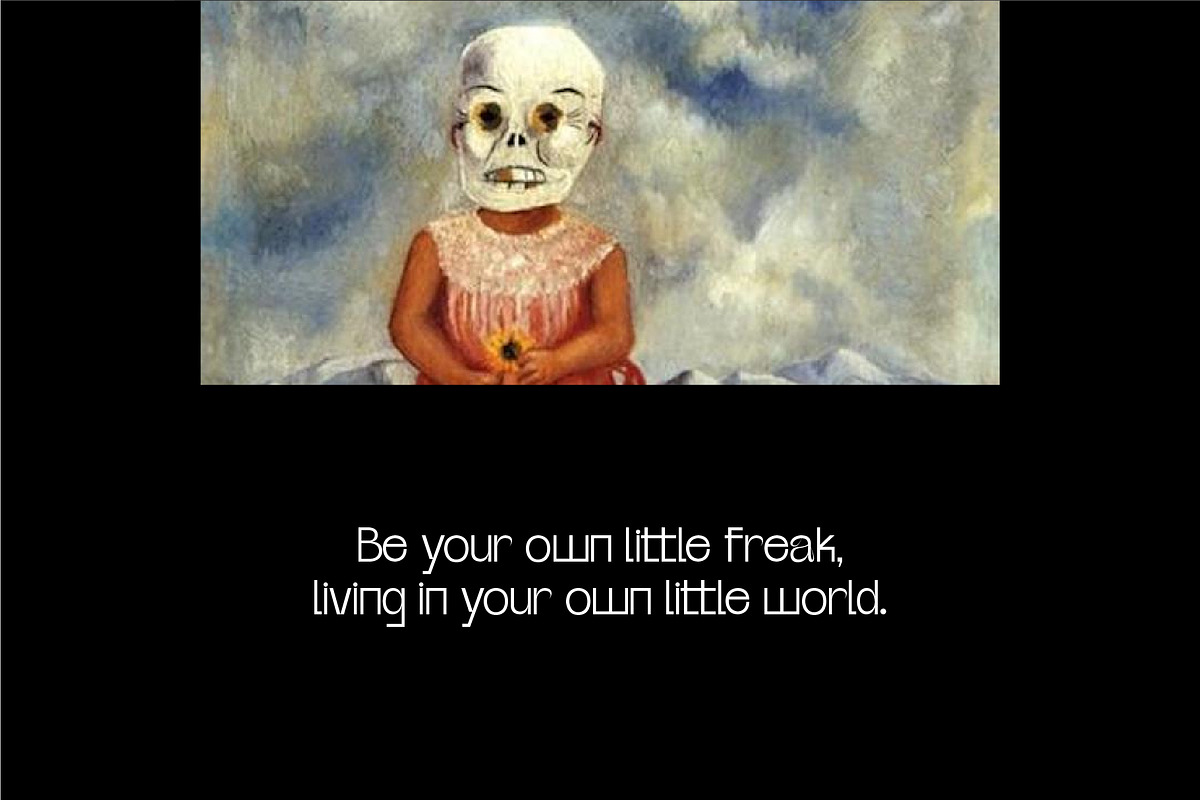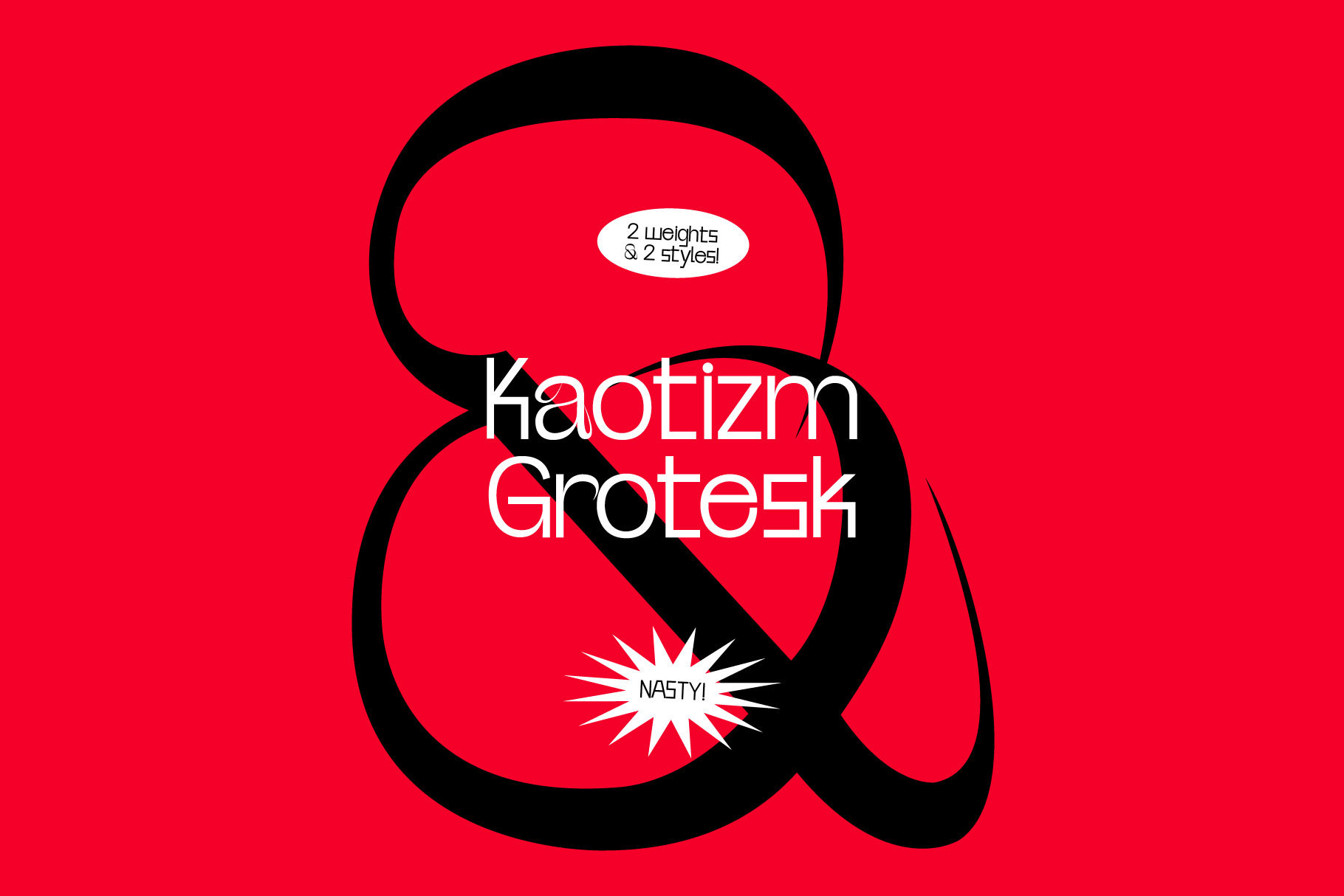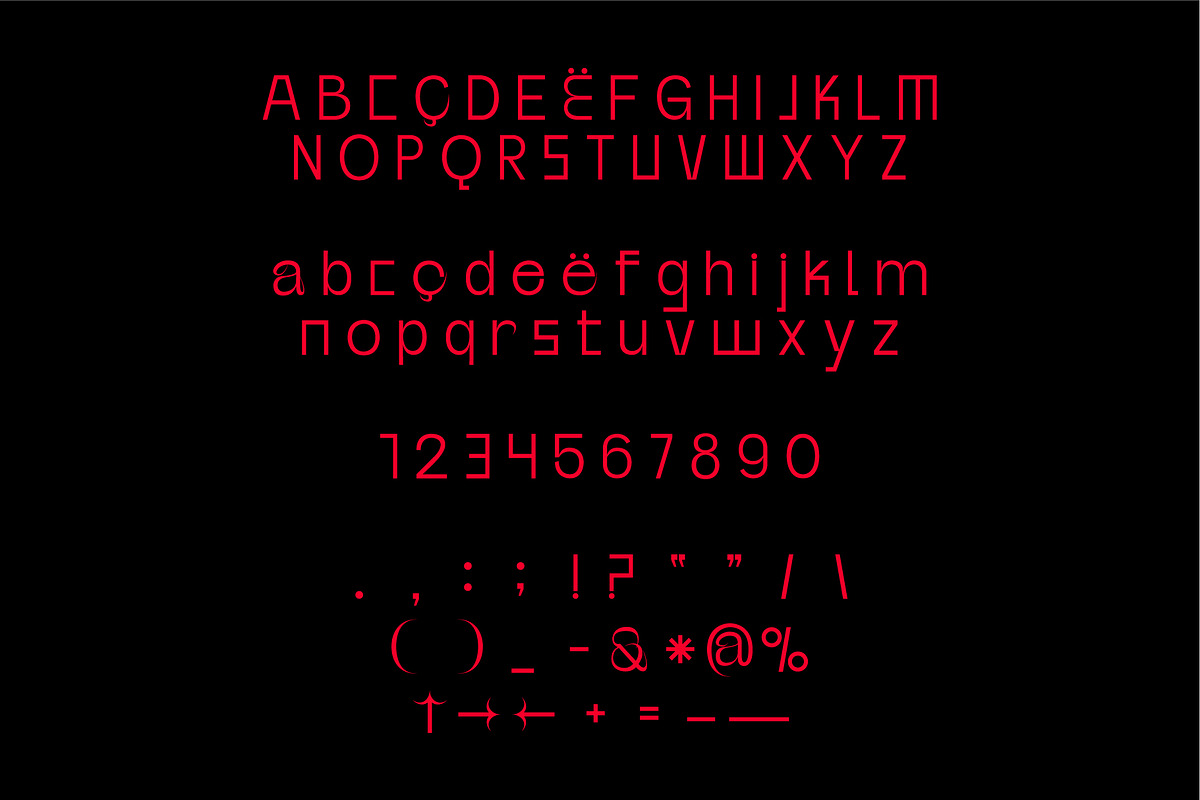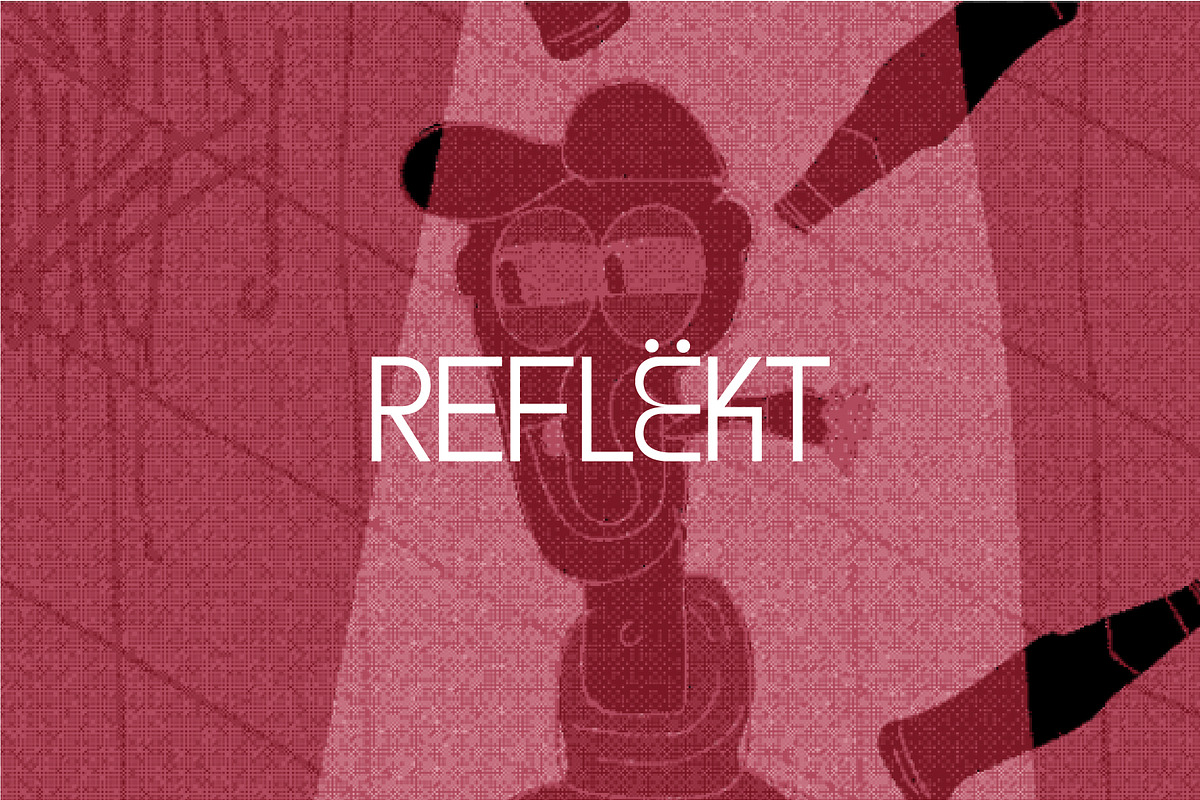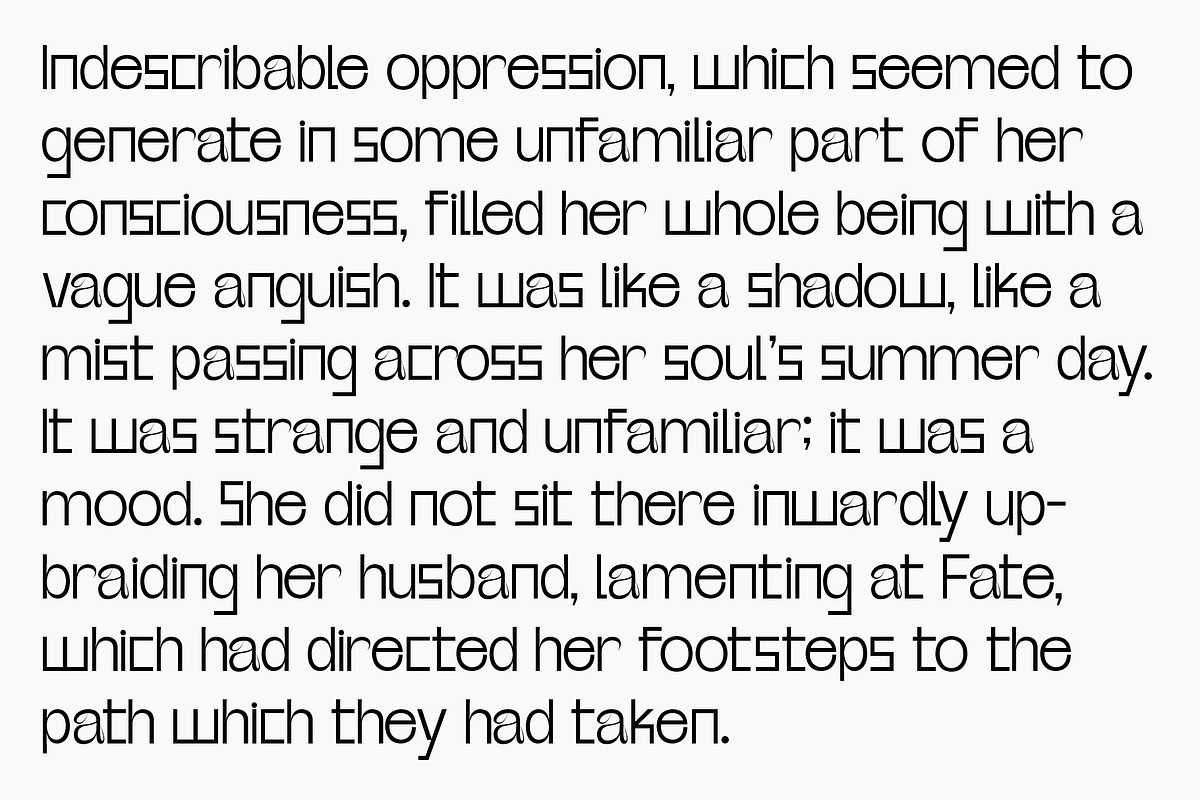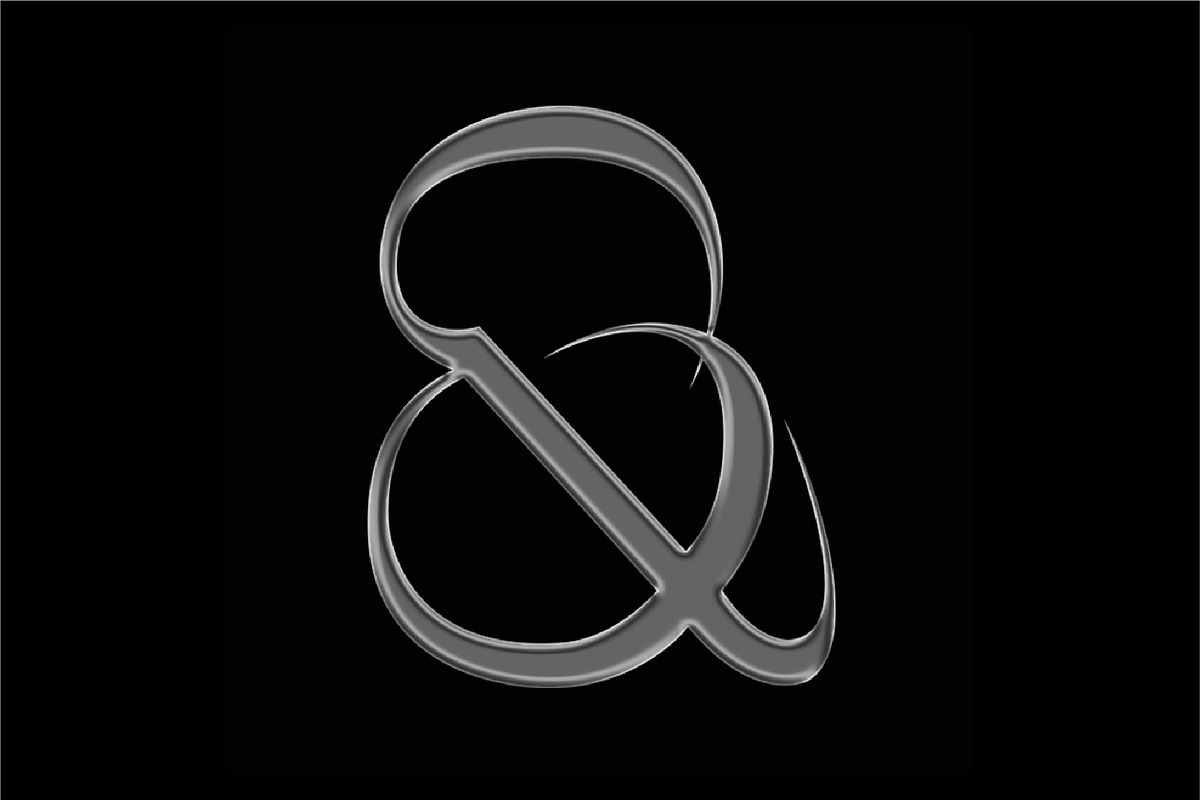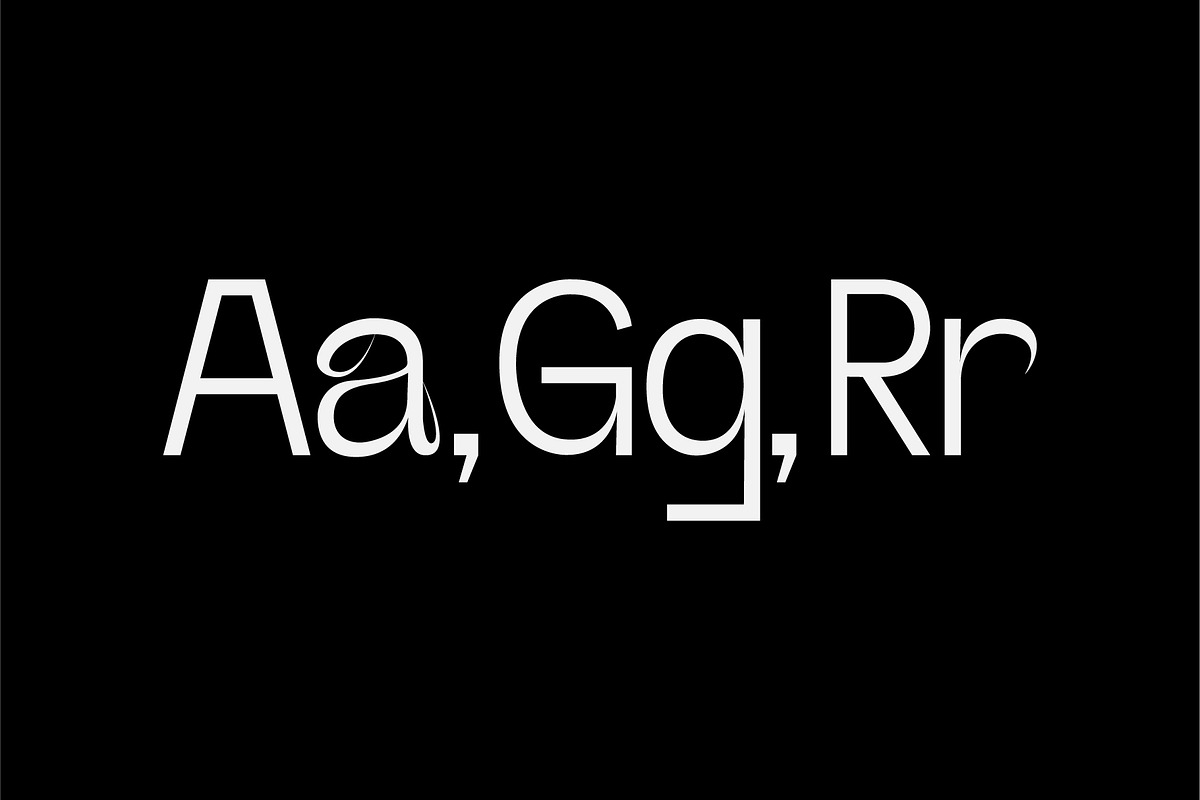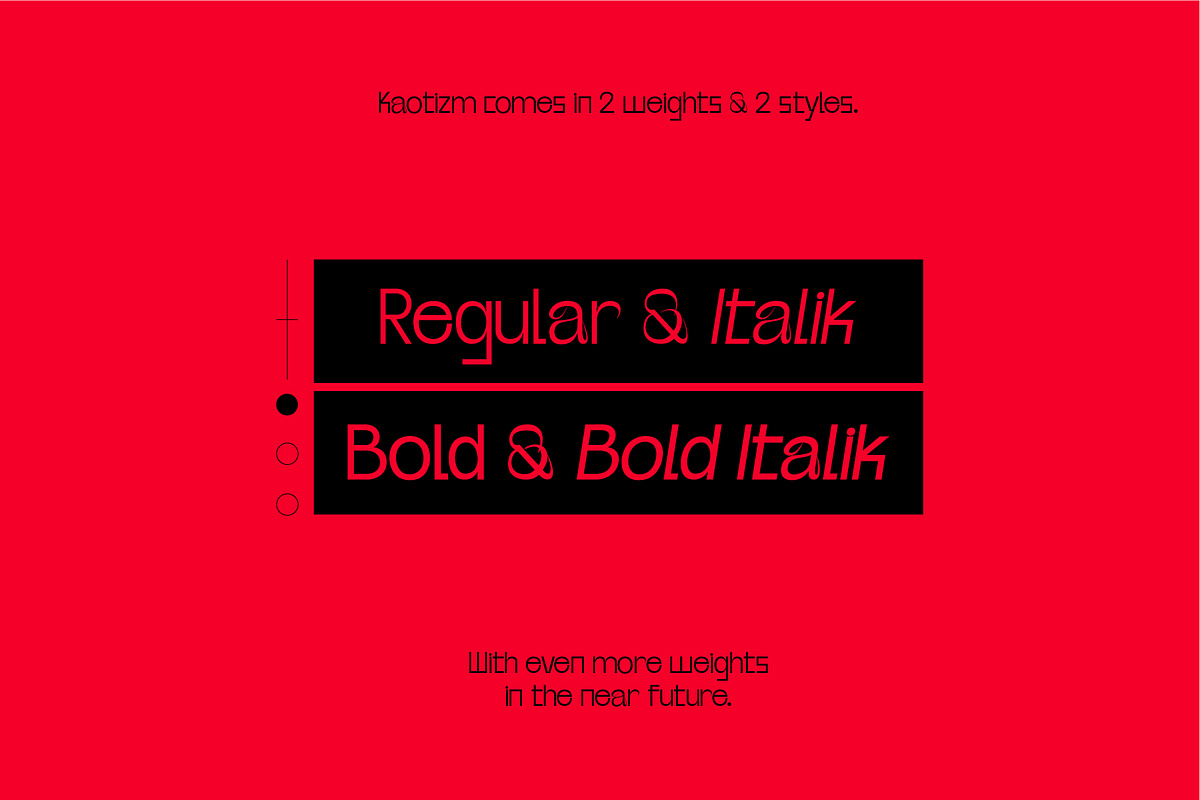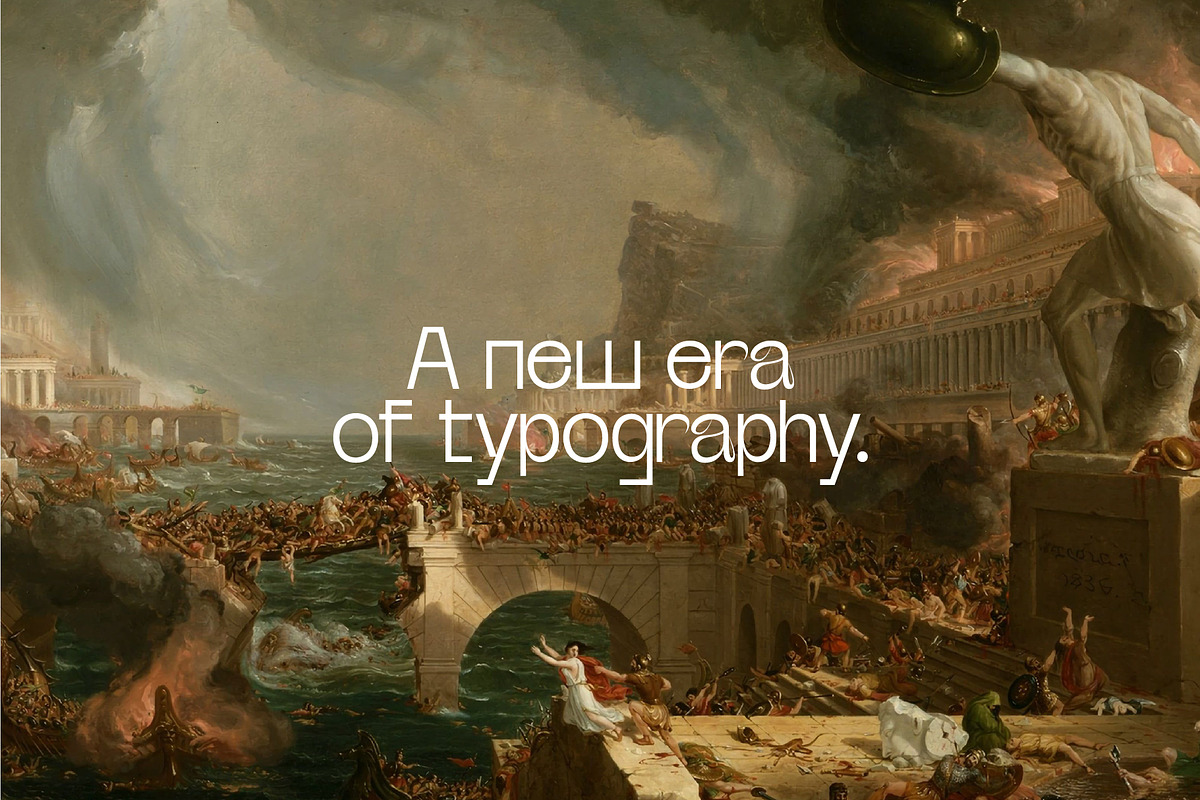
Kaotizm - Grotesk Typeface
Kaotizm is the latest type projekt finished! It is the reworked & more chaotic version of an older type. It features some sharp, gnarly & nasty glyphs. A mixture of peaceful type & chaos induced elements.
It has been fully re-done visually & made way more kaotik.
Comes in 2 weights & 2 styles!